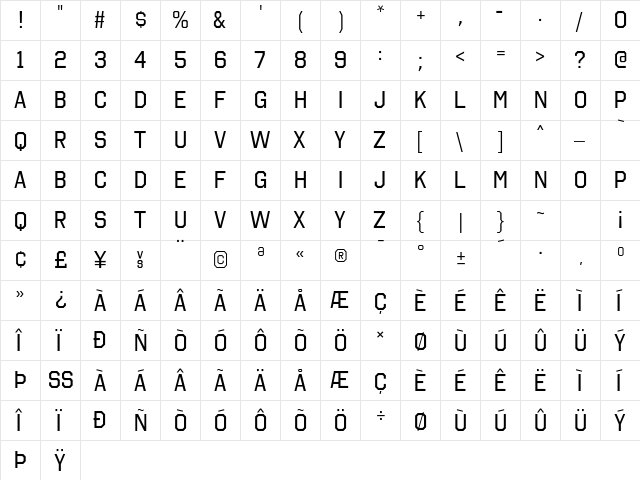
Octin College Regular
Design Context for Octin College Typeface
Octin College brings high-energy athletic personality to the page — its confident, muscular forms are built for impact.
Built for sports team identities, athletic apparel, event posters, and high-energy promotional material.
Pro Tip: Octin College thrives on contrast — try it large, bold, and tight against a clean background for maximum visual impact.